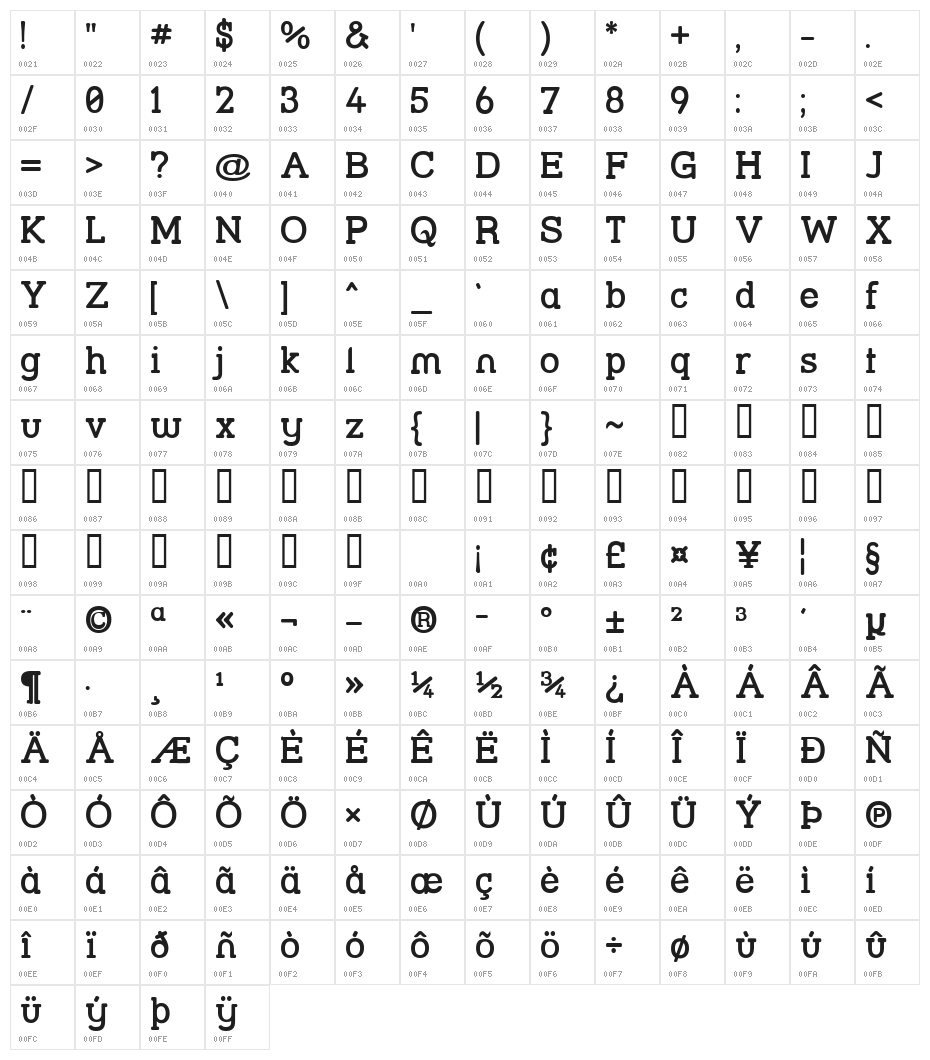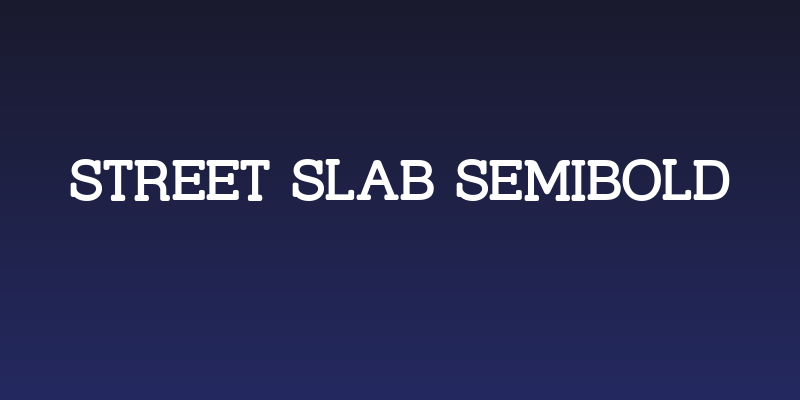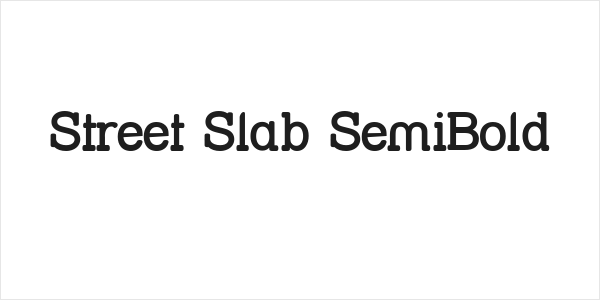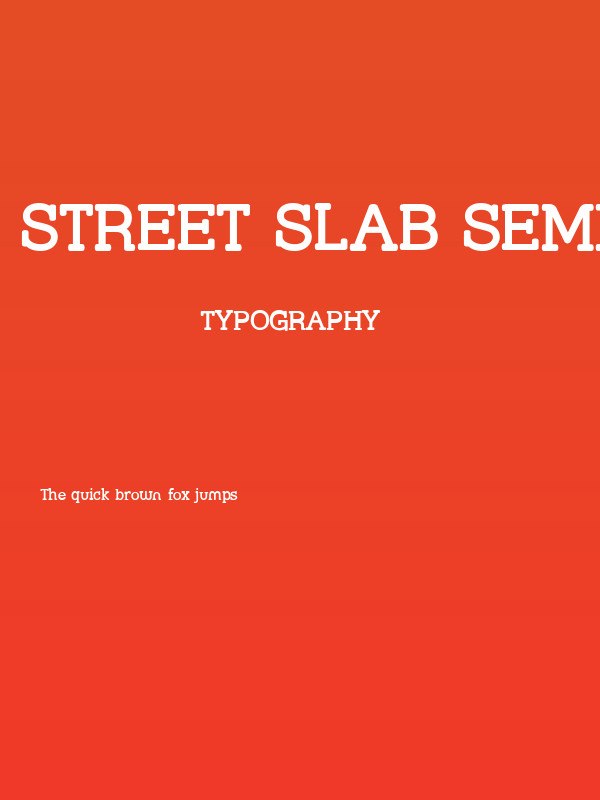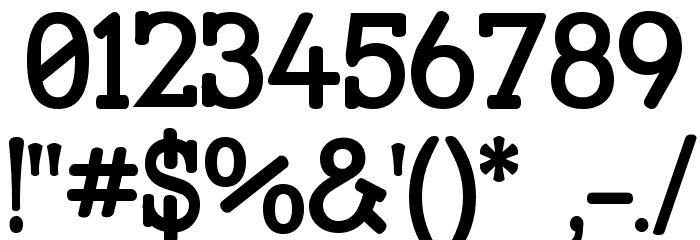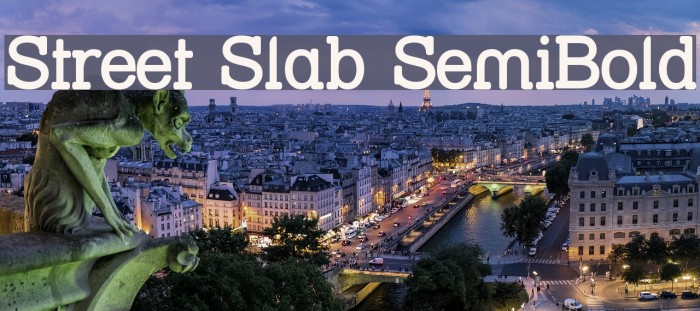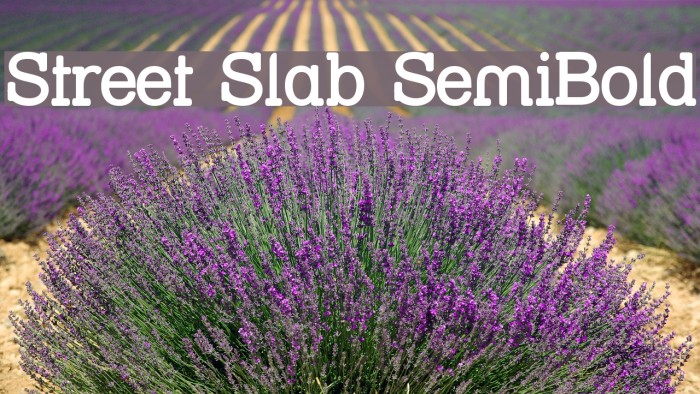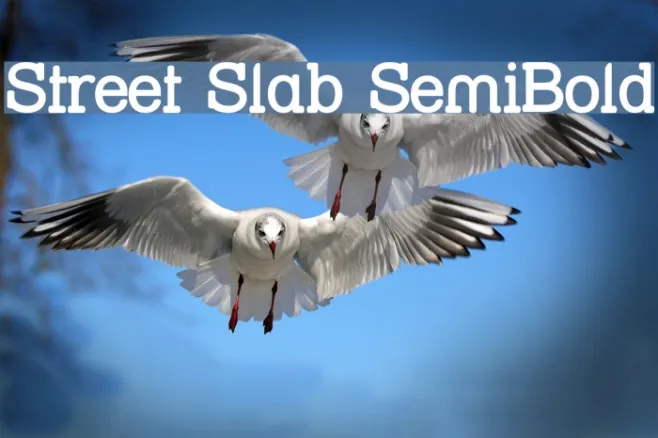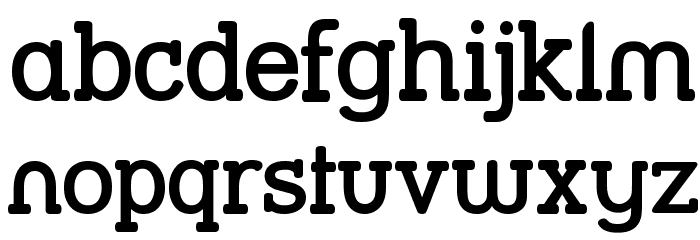
Street Slab SemiBold Font
✎ Serif
Street Slab SemiBold Description
This font features a robust and bold slab serif style, characterized by thick, block-like serifs that provide a strong and confident appearance. The uppercase letters are uniform in height, while the lowercase letters maintain a consistent baseline, offering a harmonious and balanced look. The numerals are clear and legible, making them suitable for various applications. The special characters are distinct and well-defined, ensuring versatility in design. Overall, the font conveys a sense of stability and reliability, making it ideal for impactful headlines and branding.
| Use Case | Headlines, Logos, Branding |
| Proposed Projects | Ideal for branding, headlines, posters, and signage where a strong, reliable impression is needed. |